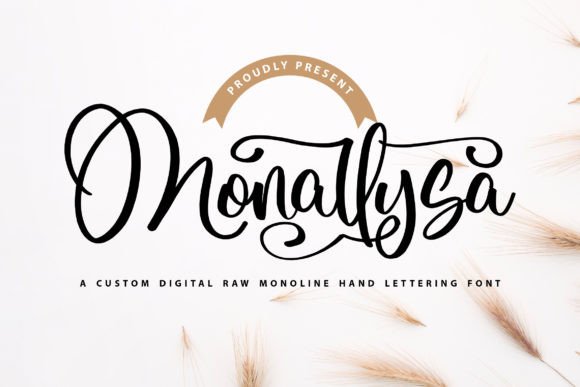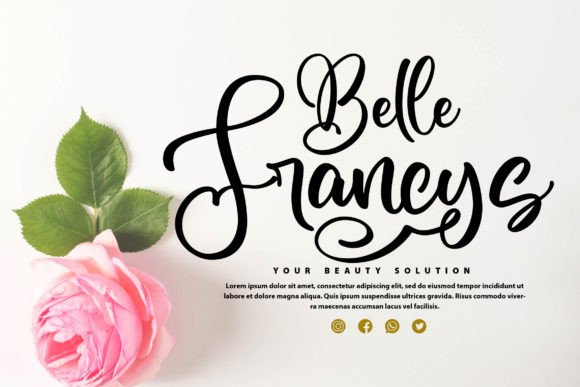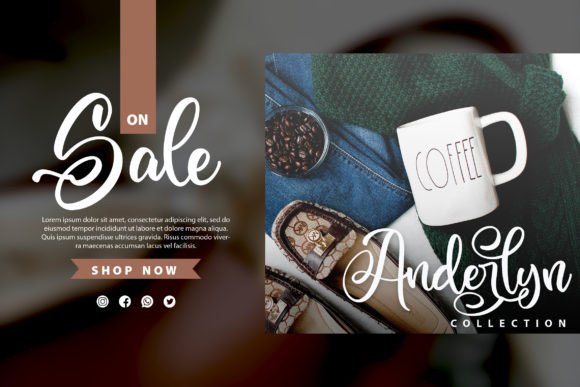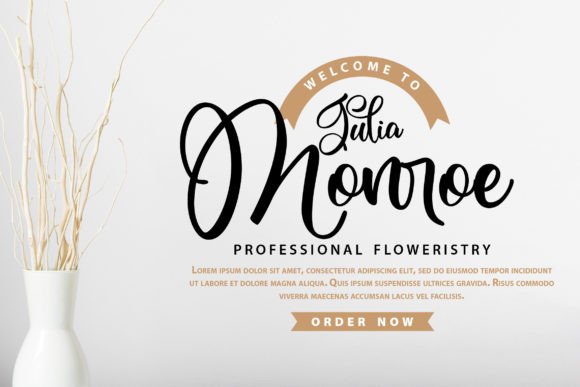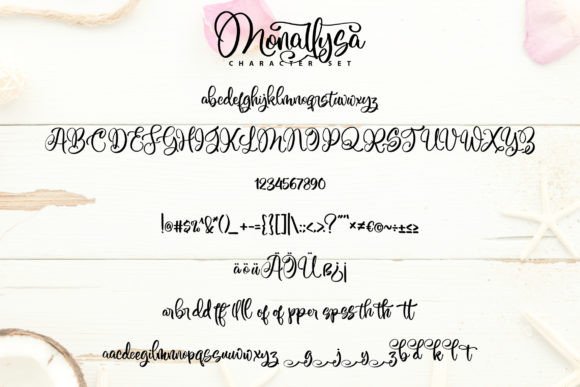
Monallysa Font
About Monallysa Font
Monallysa is a monoline handwritten font that seamlessly combines elegance with a calligraphy style, offering a beautiful touch suitable for a diverse range of design applications. Its versatility makes it a stunning choice for invitations, greeting cards, branding materials, business cards, quotes, posters, and more. With the added benefit of PUA encoding, accessing all the unique glyphs and swashes becomes effortless, enhancing the font’s adaptability.
The monoline style of Monallysa provides a consistent and graceful appearance to your text, while the calligraphy elements infuse a sense of sophistication. This harmonious combination makes the font ideal for projects where a modern and elegant aesthetic is desired.
Monallysa proves to be a versatile font that effortlessly adapts to different design contexts. Whether you’re crafting a heartfelt quote, designing branding materials that require a stylish appeal, or creating eye-catching posters, this font becomes a reliable and visually appealing choice.
The PUA encoding feature enhances the font’s flexibility, allowing designers to easily access a variety of glyphs and swashes. This feature empowers you to customize and personalize the font, ensuring that it aligns perfectly with your creative vision.
Incorporate Monallysa into your design projects to experience its unique blend of monoline simplicity and calligraphy elegance. Let it be the font that elevates the visual allure of your invitations, greeting cards, and various other creative endeavors, ensuring that your designs exude beauty and sophistication.